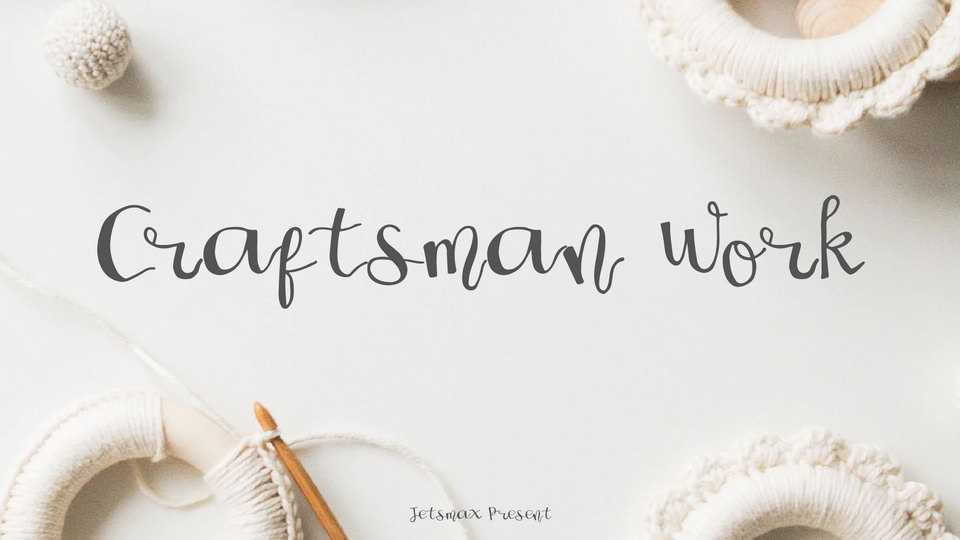
Download Craftsman Work font, a neatly designed handwritten typeface, designate to be as realistic as possible to give an authentic handwritten aesthetic.
Designer: Jetsmax Studio